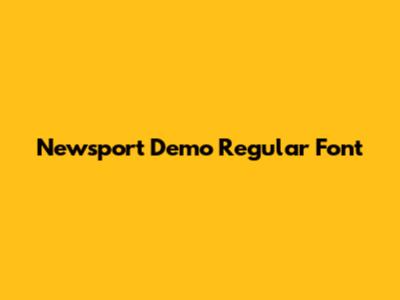
Newsport Demo Regular Font: A Detailed Overview
What is Newsport Demo Regular Font?
Okay, so first things first, what exactly is the Newsport Demo Regular Font? Simply put, it’s a typeface that balances modern aesthetics with a touch of classic readability. Designed with versatility in mind, this font is suitable for a wide range of applications, from branding to editorial design. The "Demo" part in the name suggests that it's a trial version, often provided to give you a taste of the full font family. This demo version usually includes a limited character set, but it's more than enough to get a feel for the font’s potential.
When you look at Newsport Demo Regular, you'll notice its clean lines and balanced letterforms. It’s neither too flashy nor too plain, making it a solid choice for projects where clarity and style are equally important. The regular weight ensures it’s legible in various sizes, whether you’re designing a website header or formatting body text in a document. But remember, since it’s a demo version, you might be missing out on some of the extra features that come with the complete font family. This could include different weights (like bold or light), italics, and extended character sets that support multiple languages. However, the demo version still gives you a fantastic glimpse into what the full Newsport font family has to offer, allowing you to make an informed decision before purchasing the complete package.
Why should you even care about fonts, anyway? Well, the right font can make or break a design. Think of it as the voice of your content. A font that’s hard to read or doesn’t match the tone of your project can turn people off. That’s why choosing the right typeface, like Newsport Demo Regular, is crucial for effective communication and a polished final product. So, keep an eye out for fonts that offer a good balance of style and readability – it’s what sets apart good designs from great ones!
Key Features and Design Elements
Let's zoom in on the specifics! When evaluating a font like the Newsport Demo Regular, it's important to consider its key features and design elements. These elements not only define its overall appearance but also determine its suitability for different projects. Newsport Demo Regular typically boasts a contemporary sans-serif design. Sans-serif fonts are known for their clean, modern look, characterized by the absence of small decorative strokes (or serifs) at the end of each character. This makes them ideal for digital displays and minimalist designs.
One of the standout features of Newsport Demo Regular is its balanced letter proportions. Each character is carefully crafted to ensure harmony and consistency, resulting in a visually pleasing text layout. The x-height (the height of the lowercase letters) is usually optimized for readability, making it comfortable to read even in longer paragraphs. The letter spacing, also known as kerning, is meticulously adjusted to prevent letters from appearing too crowded or too far apart, further enhancing readability. Another crucial aspect is the stroke contrast. Newsport Demo Regular generally features a moderate stroke contrast, where the difference between the thickest and thinnest parts of the letters isn't too extreme. This contributes to its clean and modern appearance, making it suitable for both headlines and body text.
Furthermore, the design often incorporates subtle details that add character and uniqueness to the font. These details might include slightly rounded corners or unique letterform shapes. For example, the lowercase 'g' or 'a' might have a distinctive design that sets it apart from other sans-serif fonts. The Newsport Demo Regular font also pays attention to the details in its punctuation marks. The commas, periods, and other symbols are designed to complement the letterforms, ensuring a cohesive and polished look. Attention to these small details can significantly impact the overall aesthetic and readability of the font. All these elements combined make Newsport Demo Regular a versatile and visually appealing choice for various design applications. So, when you're assessing whether this font is right for your project, keep these design elements in mind to ensure it aligns with your creative vision and functional requirements.
Best Use Cases for Newsport Demo Regular
Alright, so where can you actually use Newsport Demo Regular? This font is super versatile, making it a great pick for lots of different projects. Because it’s clean and modern, it works wonders in digital designs. Think website headers, app interfaces, and social media graphics. Its readability ensures that your message comes across clearly, no matter the screen size. But it's not just for the digital world! Newsport Demo Regular also shines in print. It’s an excellent choice for brochures, posters, and even business cards. The balanced letterforms make it easy to read, even in smaller sizes, so you can confidently use it for body text as well as headlines.
Branding is another area where this font excels. If you’re working on a logo or a brand identity, Newsport Demo Regular can help convey a sense of modernity and professionalism. Its clean lines and balanced appearance make it suitable for a wide range of industries, from tech startups to creative agencies. When it comes to editorial design, this font is a solid choice for magazines, newsletters, and reports. It strikes a good balance between style and readability, ensuring that your content looks great and is easy to digest. Just imagine a sleek, modern magazine layout with Newsport Demo Regular headlines and body text – it’s a match made in design heaven!
And hey, let’s not forget about presentations! If you want your slides to look polished and professional, using Newsport Demo Regular can help you achieve that. It’s clean, legible, and won’t distract your audience from the content. Whether you’re presenting a business proposal or sharing your latest research findings, this font will ensure that your message is clear and impactful. So, whether you're designing a website, creating marketing materials, or putting together a presentation, Newsport Demo Regular is a versatile tool that can help you achieve a polished and professional look. Its clean lines, balanced letterforms, and excellent readability make it a standout choice for a wide range of applications. Keep experimenting and see where it fits best in your creative toolkit!
Limitations of the Demo Version
Now, let's keep it real: the demo version isn't the full package. Usually, when you download a demo font like Newsport Demo Regular, you're getting a sneak peek rather than the whole enchilada. The biggest limitation is often the character set. While the demo might include uppercase and lowercase letters, numbers, and basic punctuation, it typically lacks the full range of special characters, symbols, and accented characters that come with the complete font family. This can be a problem if you need to support multiple languages or use specific symbols in your design.
Another common limitation is the absence of different font weights and styles. The demo version usually comes in only one weight – regular – which means you won't have access to bold, italic, light, or other variations. This can restrict your design options and make it harder to create visual hierarchy and emphasis in your text. Additionally, some demo fonts might have licensing restrictions. The license agreement might prohibit commercial use, meaning you can only use the font for personal or evaluation purposes. Always read the license carefully to avoid any legal issues. Watermarks or incomplete glyphs are also possible limitations. Some demo fonts might include subtle watermarks or have intentionally distorted glyphs to discourage unauthorized use. These can be distracting and make the font unusable for professional projects.
Also, think about long-term support and updates. The demo version is unlikely to receive any updates or technical support. If you encounter any issues or need assistance, you're on your own. In contrast, the full version usually comes with ongoing support and updates to ensure compatibility with the latest software and operating systems. Despite these limitations, the demo version is still valuable for evaluating the font and determining whether it meets your needs. Just remember to consider these restrictions when planning your project and factor in the cost of upgrading to the full version if you decide to use the font commercially. So, while the Newsport Demo Regular font is a great way to test the waters, always be aware of its limitations and consider upgrading to the full version for complete functionality and support.
Where to Download Newsport Demo Regular
Okay, so you're intrigued and wanna give Newsport Demo Regular a whirl, right? Finding a safe and legit download source is key. The best place to start is usually the website of the font designer or foundry. These official sources often offer demo versions for free, allowing you to test the font without any risk of malware or copyright infringement. Plus, you’re directly supporting the creators, which is always a good thing!
Reputable font marketplaces are another great option. Sites like MyFonts, Adobe Fonts, and Fontspring are known for their extensive collections and high-quality fonts. They often have demo versions available for download, along with clear licensing information. Just make sure you read the terms and conditions before downloading to understand what you can and can't do with the font. Be cautious of free font websites that seem too good to be true. Some of these sites might host pirated fonts or bundle them with malware. Always do your research and check reviews before downloading anything from an unfamiliar source.
Before downloading, double-check the file format. Most fonts come in either OTF (OpenType) or TTF (TrueType) format. Both are widely compatible, but OTF is generally preferred for its advanced features and better support for complex typography. Once you've downloaded the font, installing it is usually straightforward. On Windows, you can right-click the font file and select "Install." On macOS, you can open the font file in Font Book and click "Install Font." After installing the font, it should be available in your design software, like Adobe Photoshop, Illustrator, or InDesign. If you're having trouble finding it, try restarting your computer or clearing your font cache. By downloading Newsport Demo Regular from a reliable source and following these installation tips, you can start experimenting with this versatile font and see how it can enhance your designs. So, go ahead, give it a try, and unleash your creativity!
Alternatives to Newsport Demo Regular
If Newsport Demo Regular isn't quite hitting the mark, don't sweat it! The world of fonts is vast and varied, and there are plenty of alternatives that might be a better fit for your project. Let’s explore some options. First up, consider Montserrat. This is a super popular sans-serif font known for its clean and modern aesthetic. It’s highly readable and works well in both headlines and body text, making it a versatile choice for web and print design.
Another excellent alternative is Lato. This sans-serif font has a warm and friendly feel, thanks to its slightly rounded corners. It’s a great option if you want a font that’s both modern and approachable. Lato is also highly legible, making it suitable for a wide range of applications, from websites to brochures. If you’re looking for something a bit more geometric, Poppins might be the perfect choice. This font features clean, geometric letterforms that give it a sleek and modern look. It’s particularly well-suited for branding and logo design, but it also works well in web and print projects.
For a classic sans-serif option, Open Sans is a reliable choice. This font is known for its neutrality and readability, making it a safe bet for any project where clarity is paramount. Open Sans is also highly versatile and works well in a variety of contexts, from websites to documents. And let’s not forget about Roboto. This sans-serif font is a staple in the Android operating system, and for good reason. It’s clean, modern, and highly legible, making it a great choice for digital interfaces and body text. Roboto also comes in a variety of weights, giving you plenty of flexibility in your design.
Each of these fonts offers a unique look and feel, so take some time to experiment and see which one resonates best with your project. Consider the overall tone and style you’re trying to achieve, and choose a font that aligns with your vision. With so many great alternatives to choose from, you’re sure to find the perfect typeface to bring your designs to life. So, don't be afraid to explore and discover new fonts – it's all part of the fun!
Final Thoughts
So, there you have it! A comprehensive look at the Newsport Demo Regular font. From its design elements and best use cases to its limitations and where to download it, we've covered all the bases. Remember, the key to choosing the right font is understanding your project's needs and selecting a typeface that aligns with your vision. Whether you decide to stick with Newsport Demo Regular or explore some of the alternatives we discussed, the most important thing is to have fun and let your creativity shine. Happy designing, folks! You've got this!